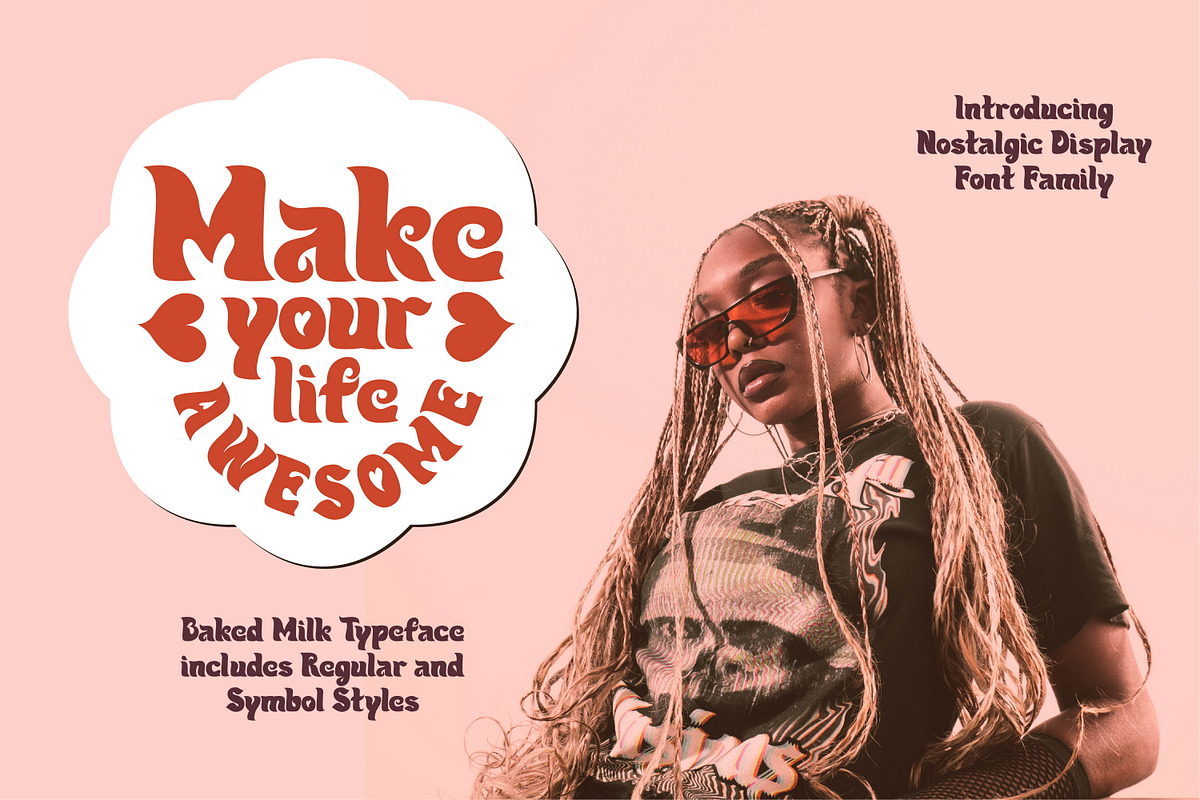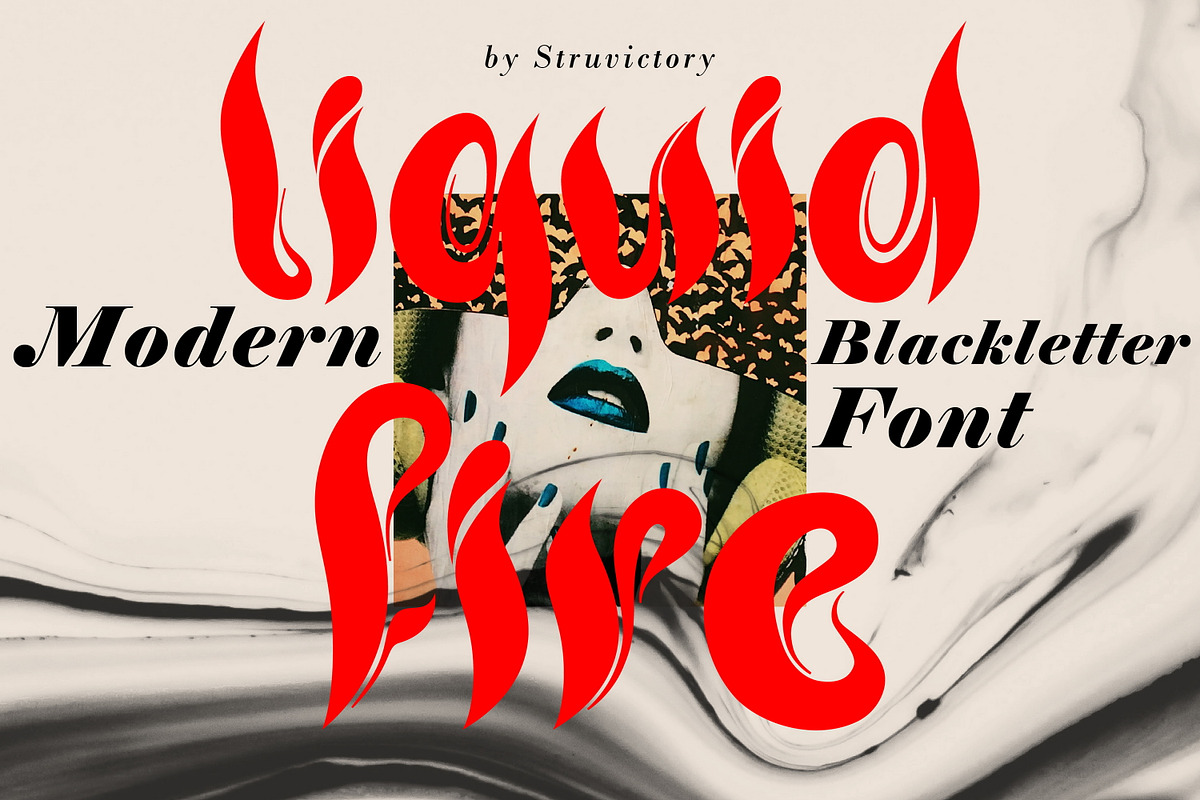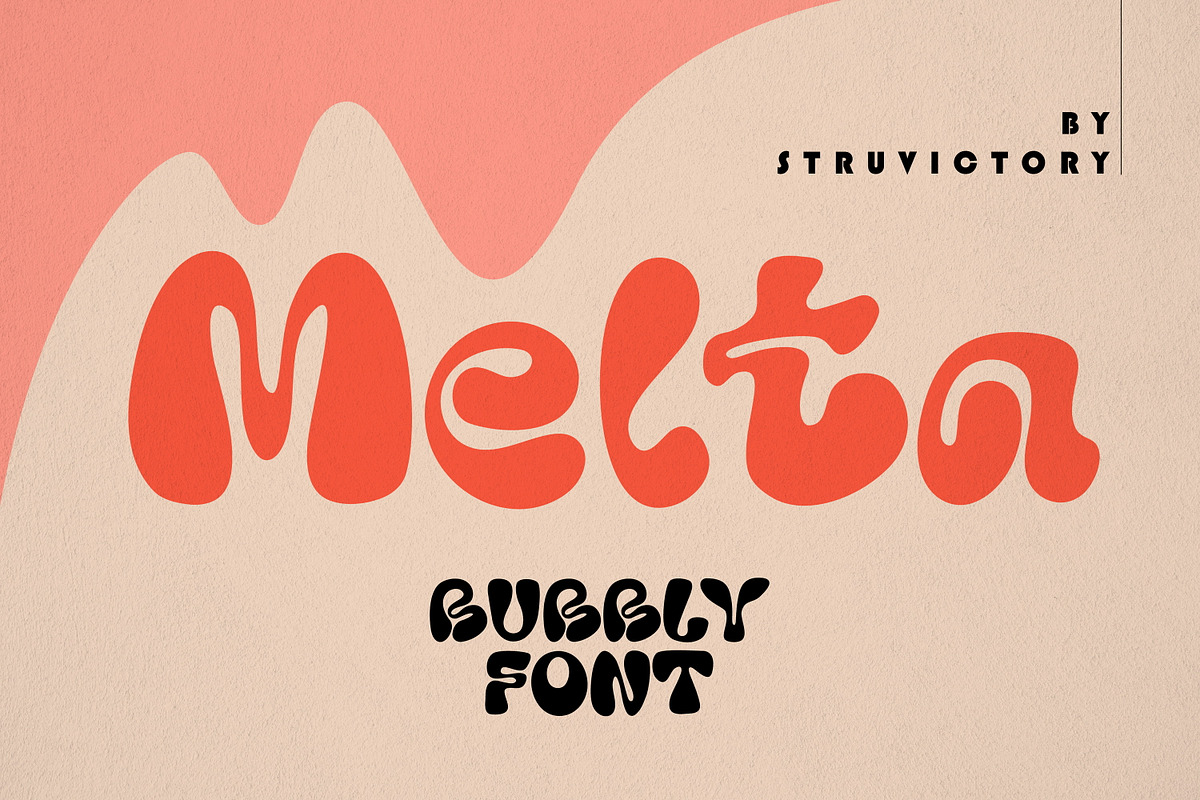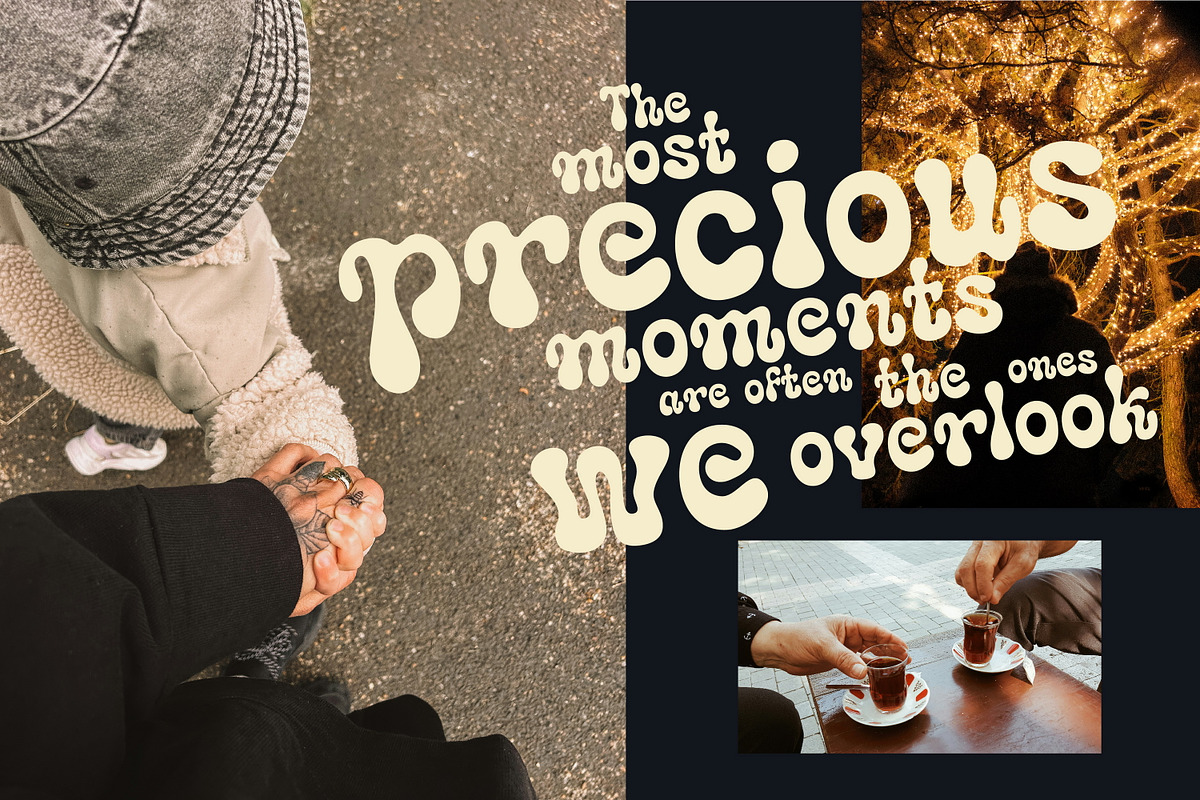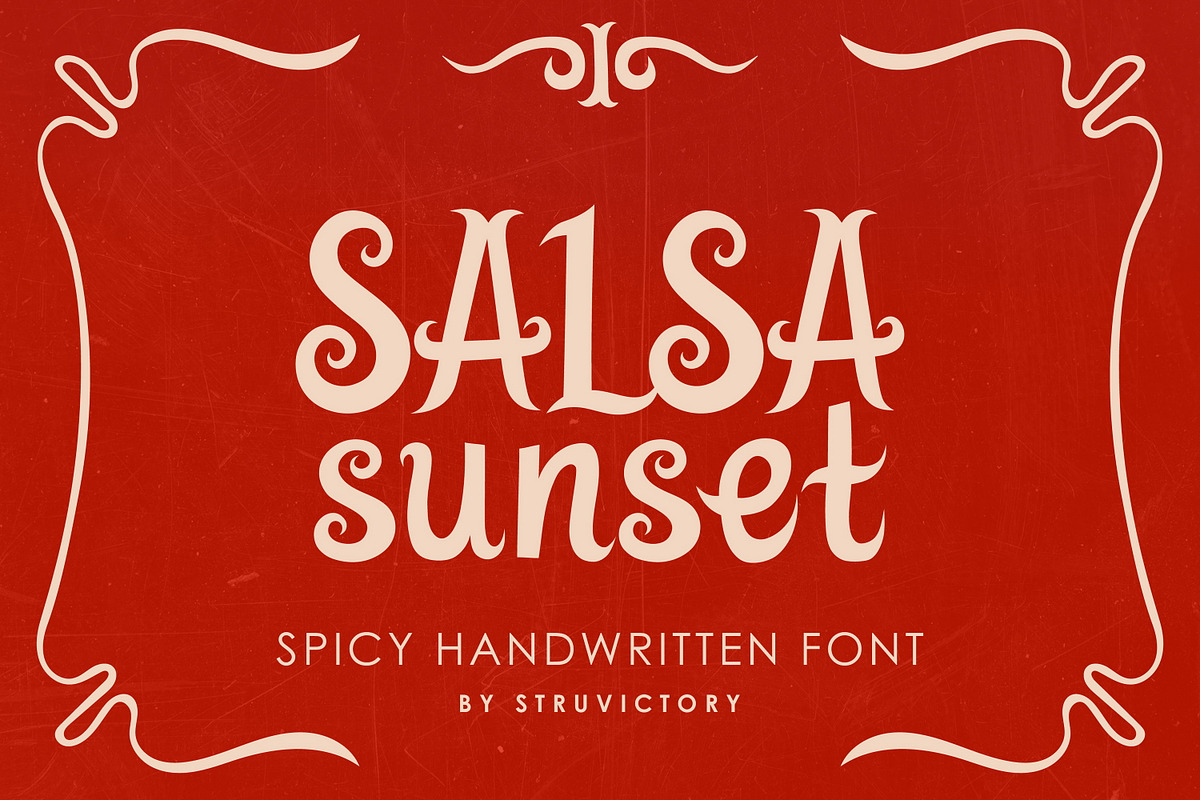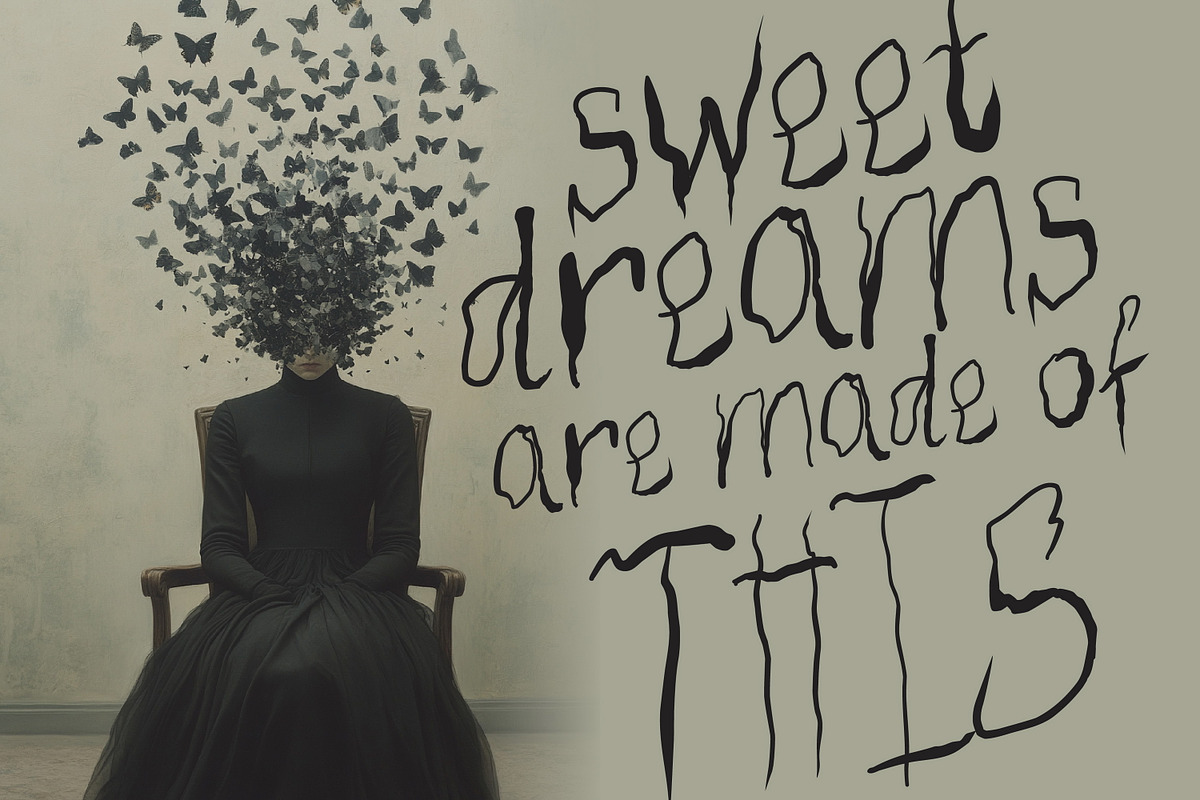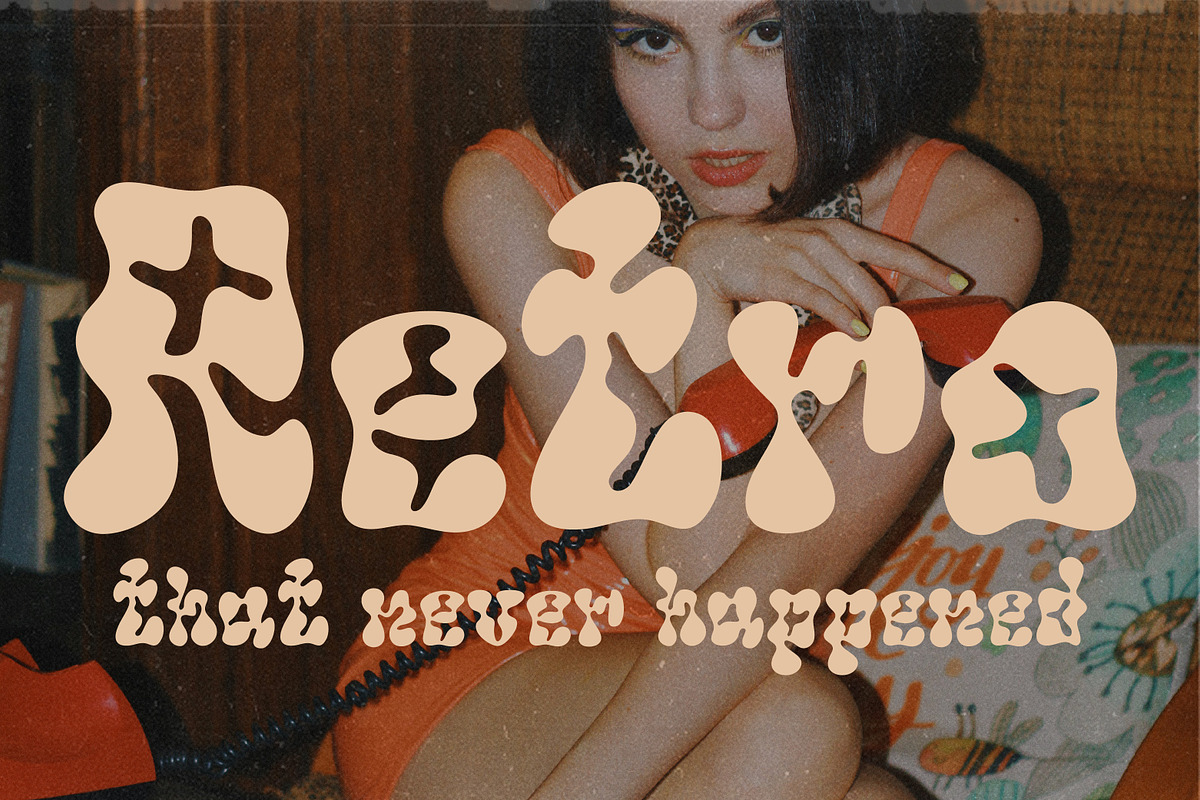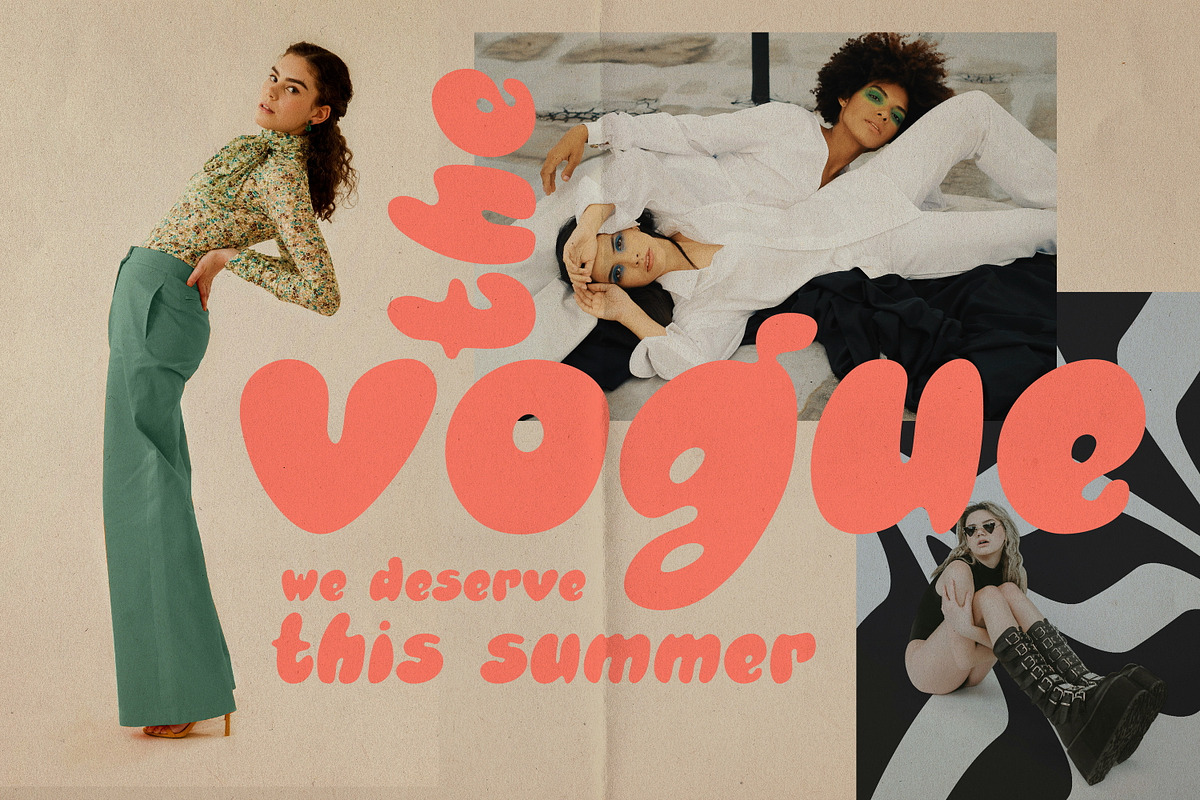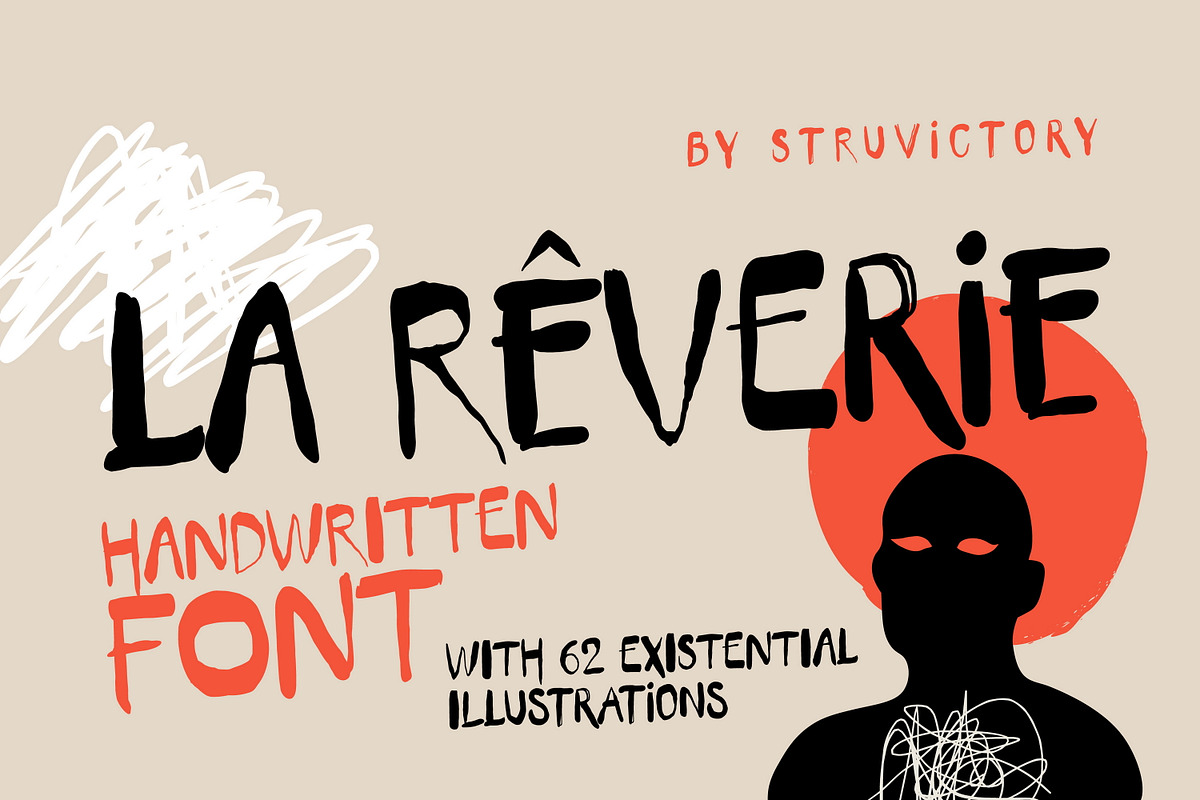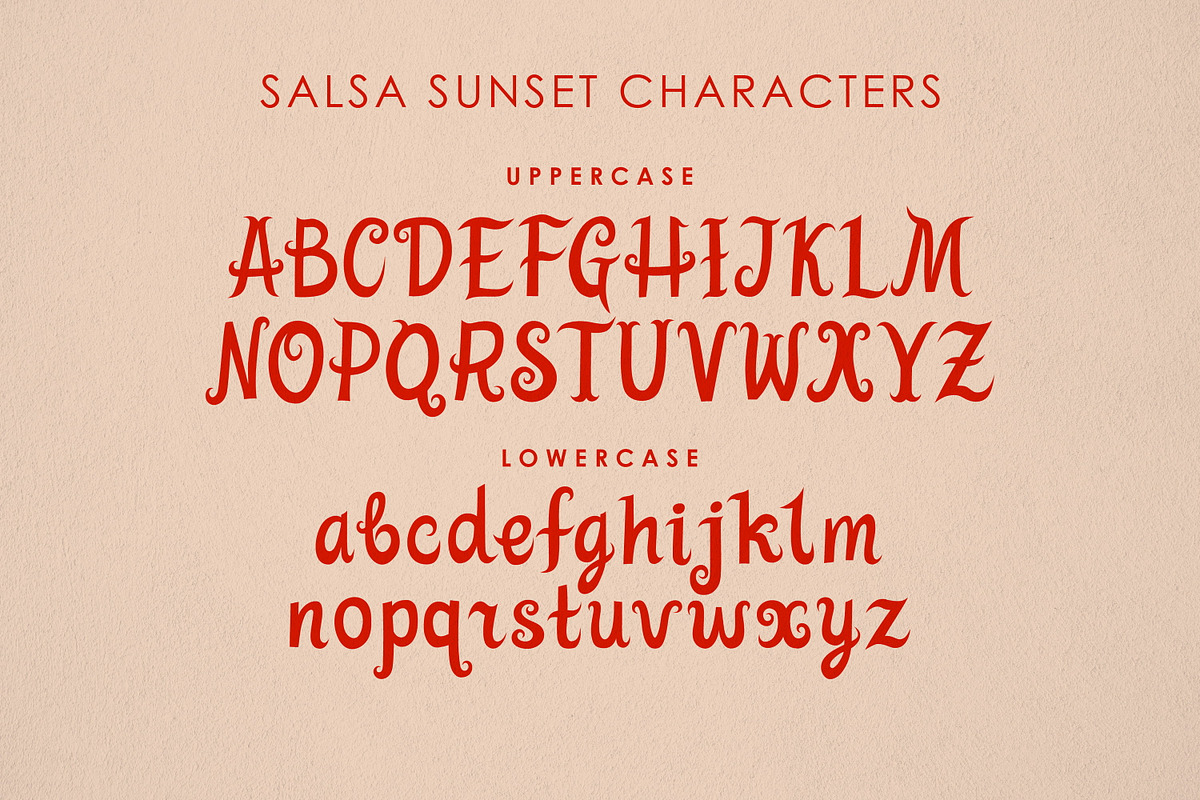
Whimsical Font Bundle 10 in 1
Revamp your design with our unique bundle of 10 whimsical fonts! This set features a variety of handwritten, bubbly, groovy, and y2k fonts, created with love to emphasize the uniqueness of your brand. Perfect for creating logos, social media and website designs, trendy branding, and typographic posters. Let your creativity shine with this diverse font collection.
- https://creativemarket.com/Struvictory.art/7420104-Baked-Milk-Groovy-Display-Font
- https://creativemarket.com/Struvictory.art/196293294-Jelly-Dance-Bubbly-Groovy-Font
- https://creativemarket.com/Struvictory.art/92472418-Liquid-Fire-Modern-Blackletter-Font
- https://creativemarket.com/Struvictory.art/94597581-Melta-Bubble-Groovy-Font
- https://creativemarket.com/Struvictory.art/92447099-Renovatio-Cutout-Handwritten-Font
- https://creativemarket.com/Struvictory.art/244584792-Reverie-Handwritten-Font-Symbols
- https://creativemarket.com/Struvictory.art/278946772-Salsa-Sunset-Handwritten-Spicy-Font
- https://creativemarket.com/Struvictory.art/284365331-Scratched-Stories-Halloween-Script
- https://creativemarket.com/Struvictory.art/286191316-SnowWeaver-Bubbly-Christmas-Font-Y2K
- https://creativemarket.com/Struvictory.art/281590990-Tropiquaint-Bubbly-Y2K-Groovy-Font